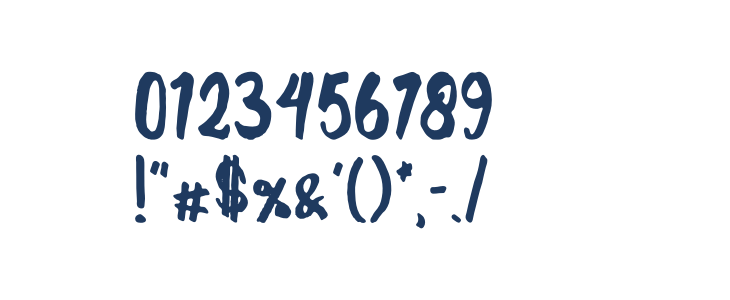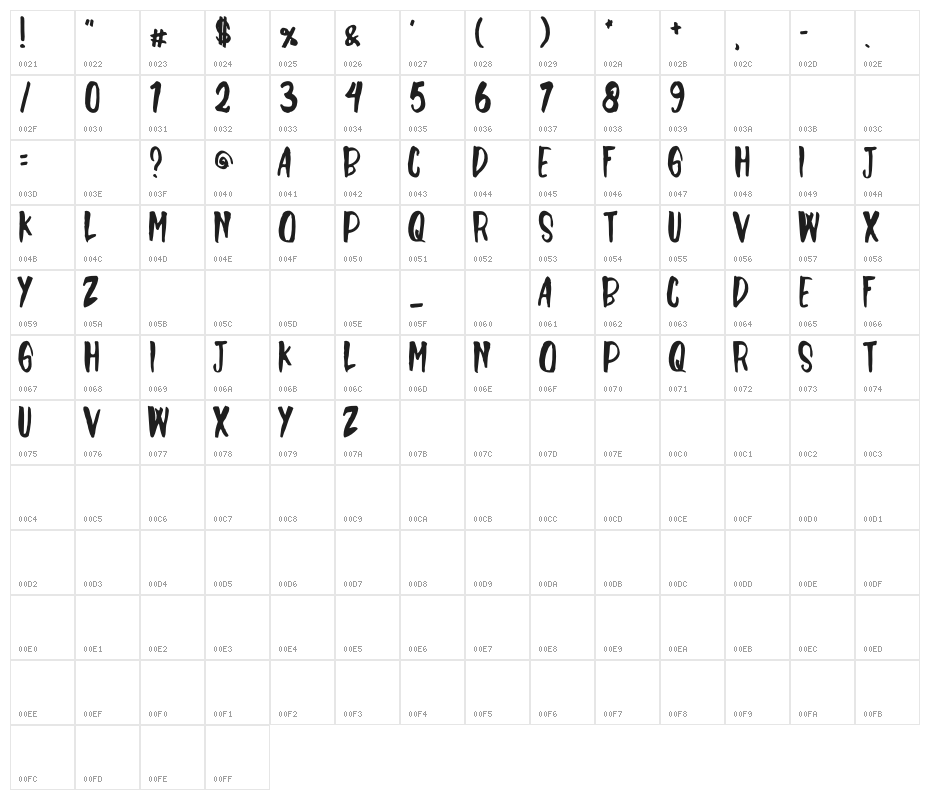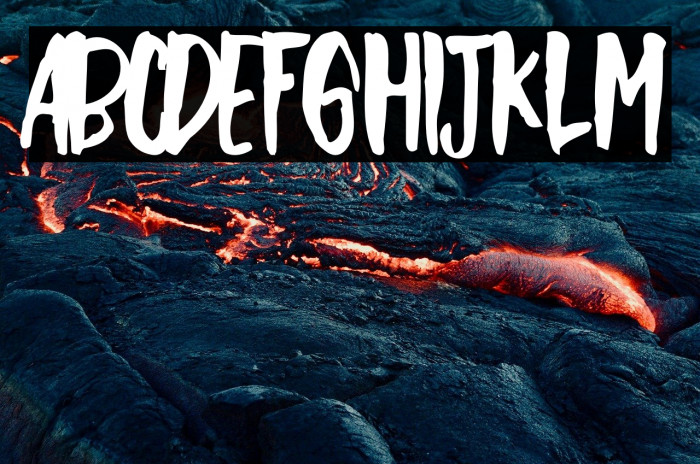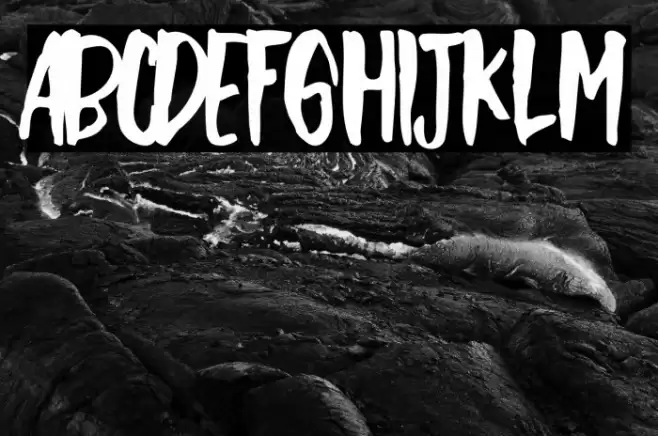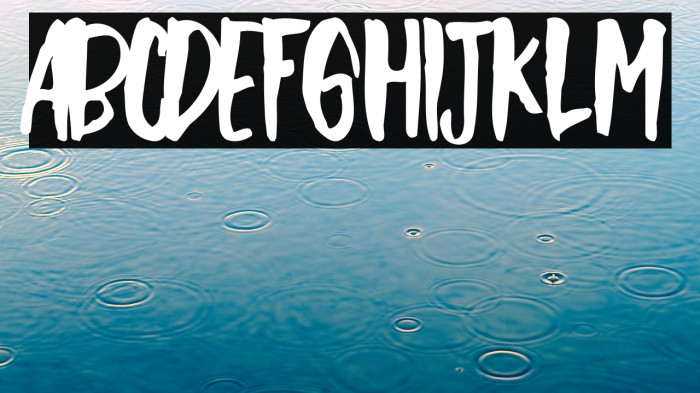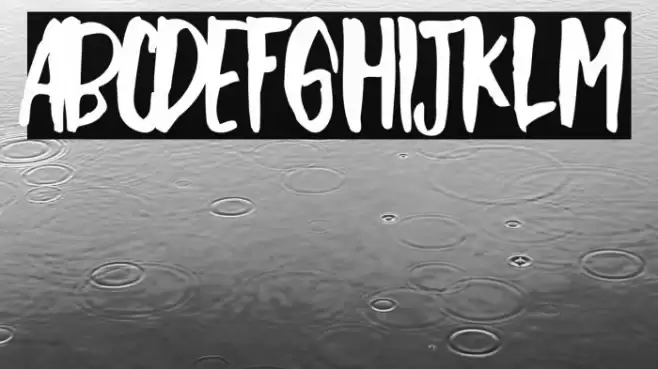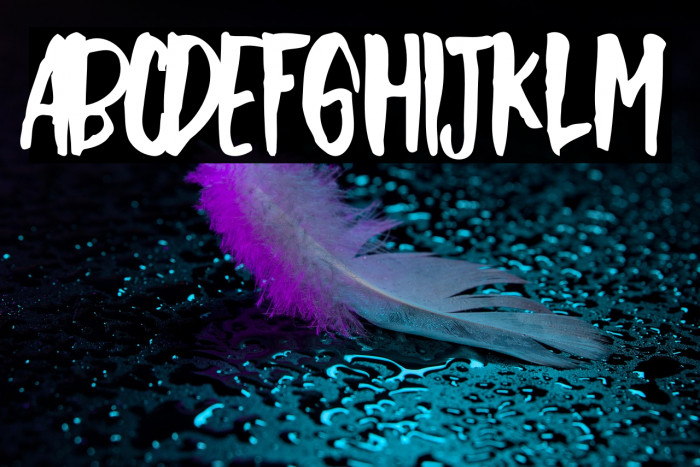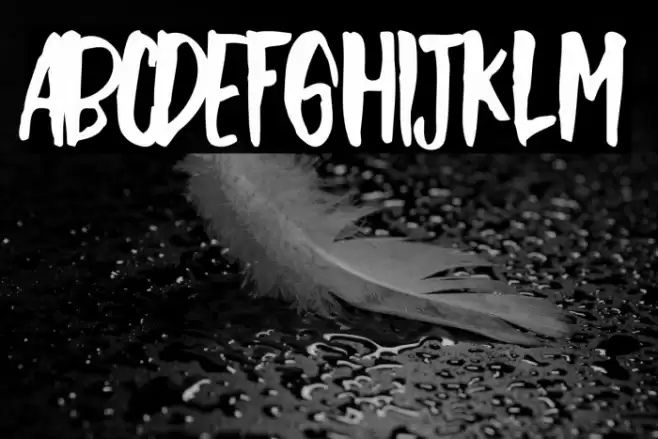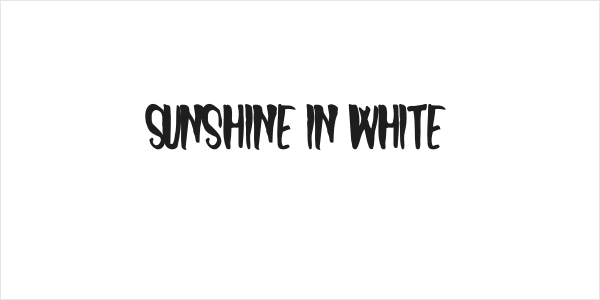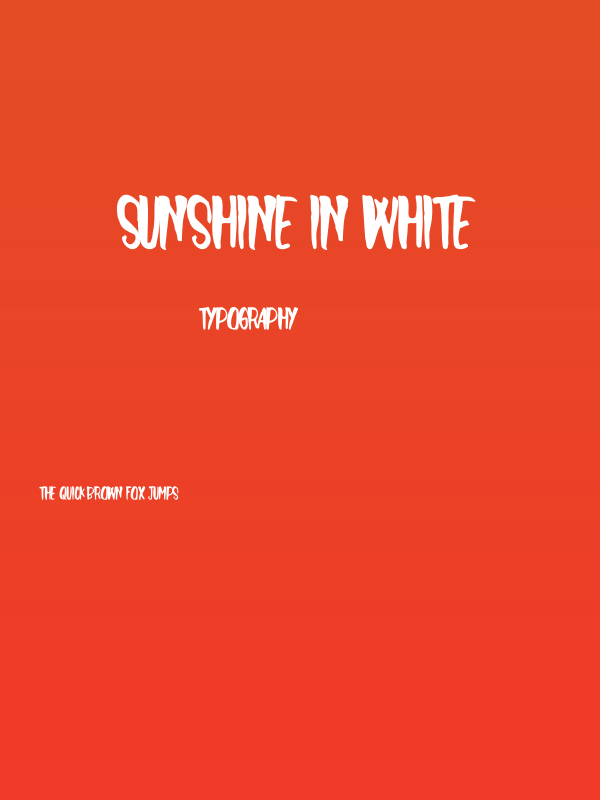
Sunshine In White Font
Sunshine In White Description
This font features a bold, handwritten style with a playful and energetic appearance. The characters are thick and slightly irregular, giving it a casual and informal feel. The uppercase and lowercase letters maintain a consistent flow, while the numbers and special characters complement the overall aesthetic. The strokes are broad and dynamic, adding a sense of movement and vibrancy. This font is ideal for projects that require a personal touch or a lively, youthful vibe.
| Proposed Projects | Perfect for greeting cards, posters, social media graphics, and branding that seeks a personal and lively touch. |